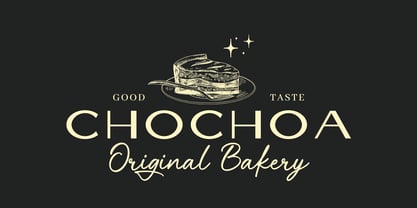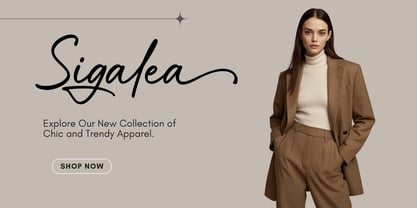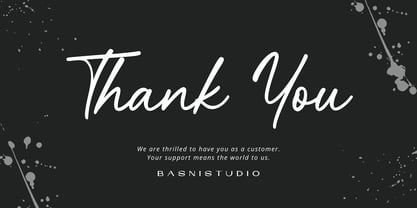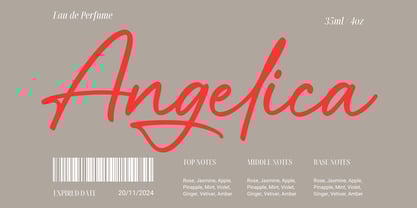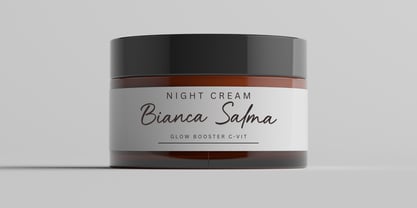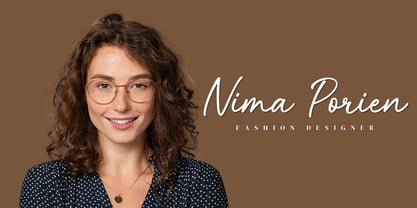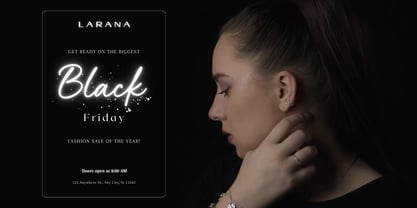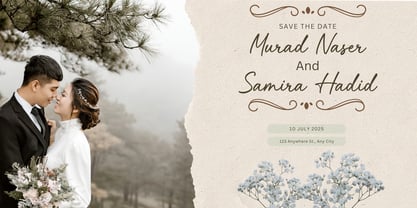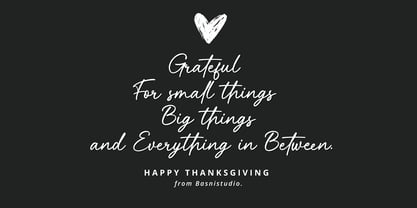
Mickelhokan
by Basnistudio
The Mickelhokan Font Family was designed by Bery Arisandi and published by Basnistudio. Mickelhokan contains 1 styles. More about this family
Introducing Mickelhokan, an elegant handwritten font crafted with authentic pen strokes for a sleek look and casual touch for everything from branding and social media to invitations and packaging. Elegant & Casual – Perfect for tagline, quotes, greeting cards, and more Authentic Handwritten Feel – Created with authentic pen strokes for a natural look Easy to Use – Works seamlessly with all major design programs What’s Included: Uppercase & lowercase letters Ligature & Alternates Swashes Numbers & punctuation Multilingual Support ( Support for 90 languages ) If you have any questions please don’t hesitate to contact me. Thank You Very Much
Designers: Bery Arisandi
Foundry: Basnistudio